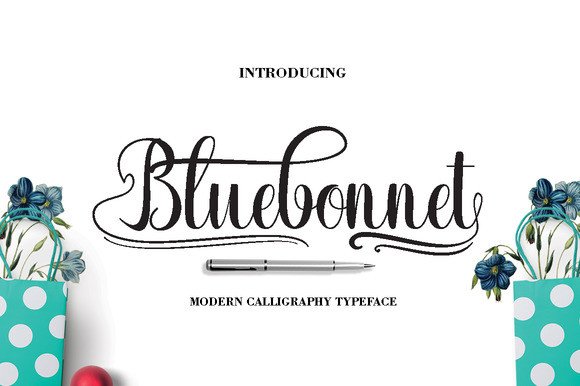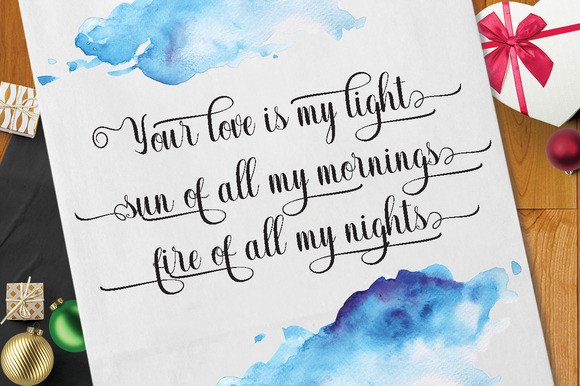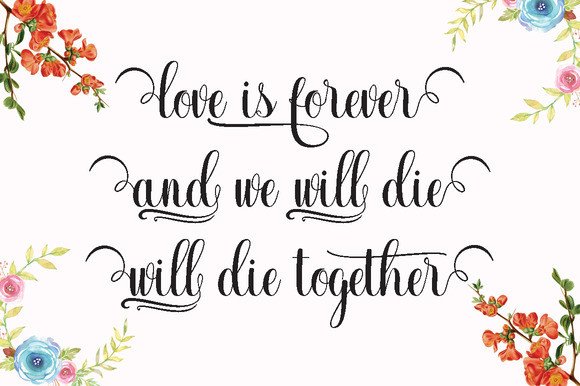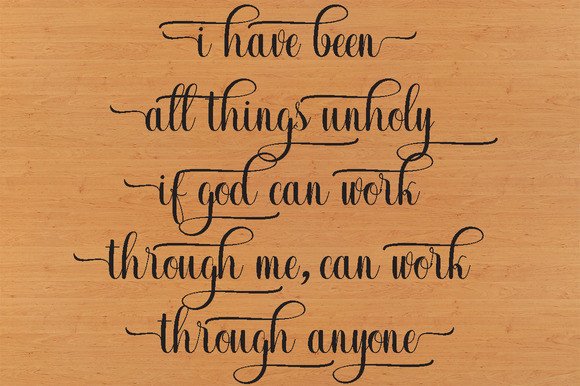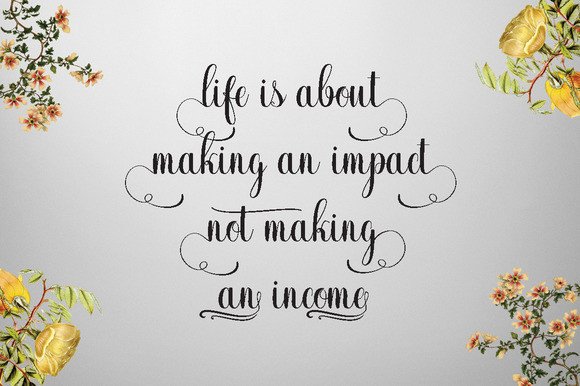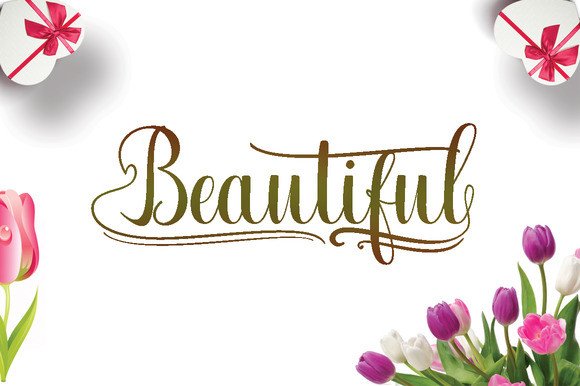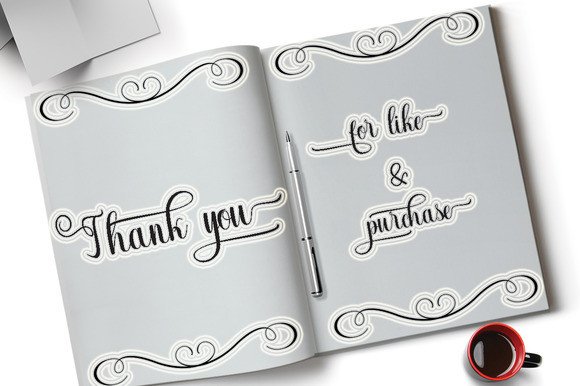
Bluebonnet Font
About Bluebonnet Font
Bluebonnet is a decorative script font that stands out with its captivating design. Crafted meticulously for use in special event design or print applications, Bluebonnet is the go-to choice for designs that need to make a statement.
The name ‘Bluebonnet’ takes inspiration from the state flower of Texas. Known for its vibrant blue hues and elegant structure, the Bluebonnet flower signals the arrival of spring. The Bluebonnet font mirrors this beauty and grace, making it a unique script font.
Bluebonnet offers a variety of letter styles, each designed with thought and detail. These styles can be combined to give your designs a unique touch. Moreover, Bluebonnet comes with a range of embellishments and ligatures, adding an extra allure to your designs.
Whether it’s wedding invitations, logo designs, banners, brochures, or more, Bluebonnet is the ideal choice. This font infuses your designs with a romantic and elegant ambiance, making them stand out.
Bluebonnet features a broad character set that allows users to personalize their designs. This character set supports various languages and includes a range of special characters and symbols.
In conclusion, if you’re looking to add a sophisticated touch to your designs, Bluebonnet is the perfect choice. The versatility and flexibility offered by this font make it ideal for any design project. With Bluebonnet, your designs are sure to be unforgettable.